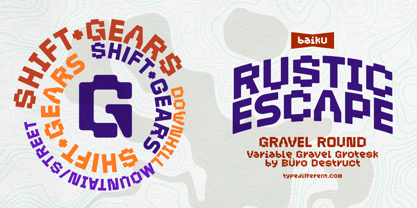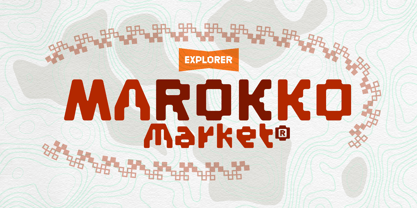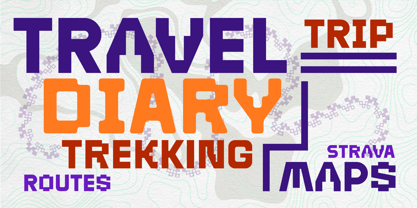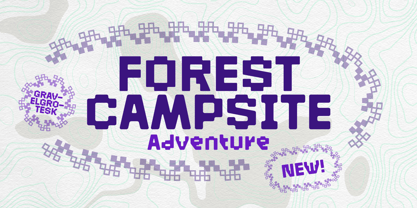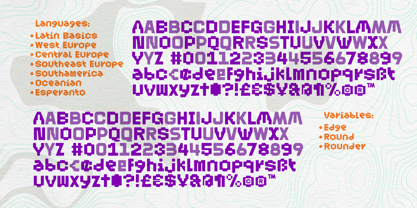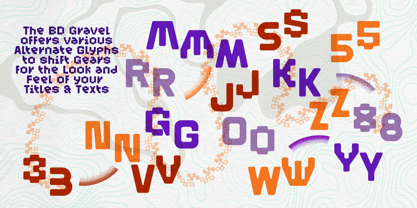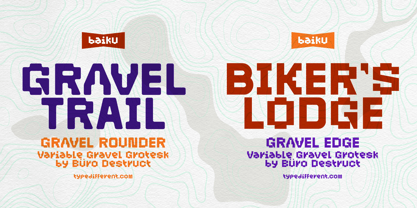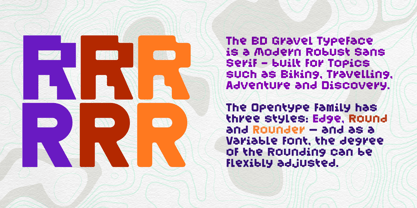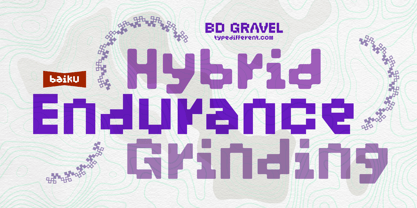
BD Gravel
by Typedifferent
The BD Gravel Font Family was designed by Lorenz (Lopetz) Gianfreda and published by Typedifferent. BD Gravel contains 4 styles and family package options.
The BD Gravel typeface is a bold, modern sans serif built for motion and discovery. Inspired by the spirit of biking, cycling, and outdoor exploration, it captures the rugged confidence of the open road. With a rich set of alternates and three distinct styles—Edge, Round, and Rounder—BD Gravel adapts to any terrain. Its variable font lets you fine-tune the roundness and softness of the contours, so your design can shift gears as smoothly as your ride.
Typedifferent is the font foundry from Büro Destruct, a graphic design studio founded 1994 in Bern, the capital city of Switzerland. Büro Destruct constantly creates new typefaces, either originally crafted for their use in commissioned work, or as graphically gymnastics in the mission of generating new shapes and forms to be used in typefaces. As the name "Typedifferent" implies – the fonts are mainly display typefaces with a unique attitude.